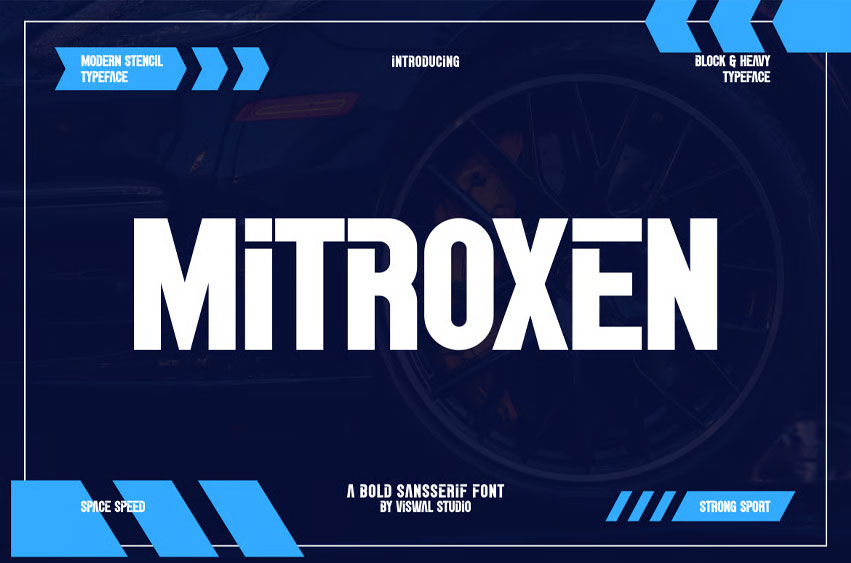
Mitroxen Font
Mitroxen Font Is A Futuristic & Techno Font. Can Make It Easier To Convey The Message In Your Design. Font Is Suitable For Logo, Labels, Badge, Branding, Magazine, Poster, Title, Gigs, Covers, etc. Our Fonts Have Uppercase & Lowercase, numerals & Punctuation, and OpenType features.
For Amazing Designs, You Can Mix With Other Fonts As A Complement.